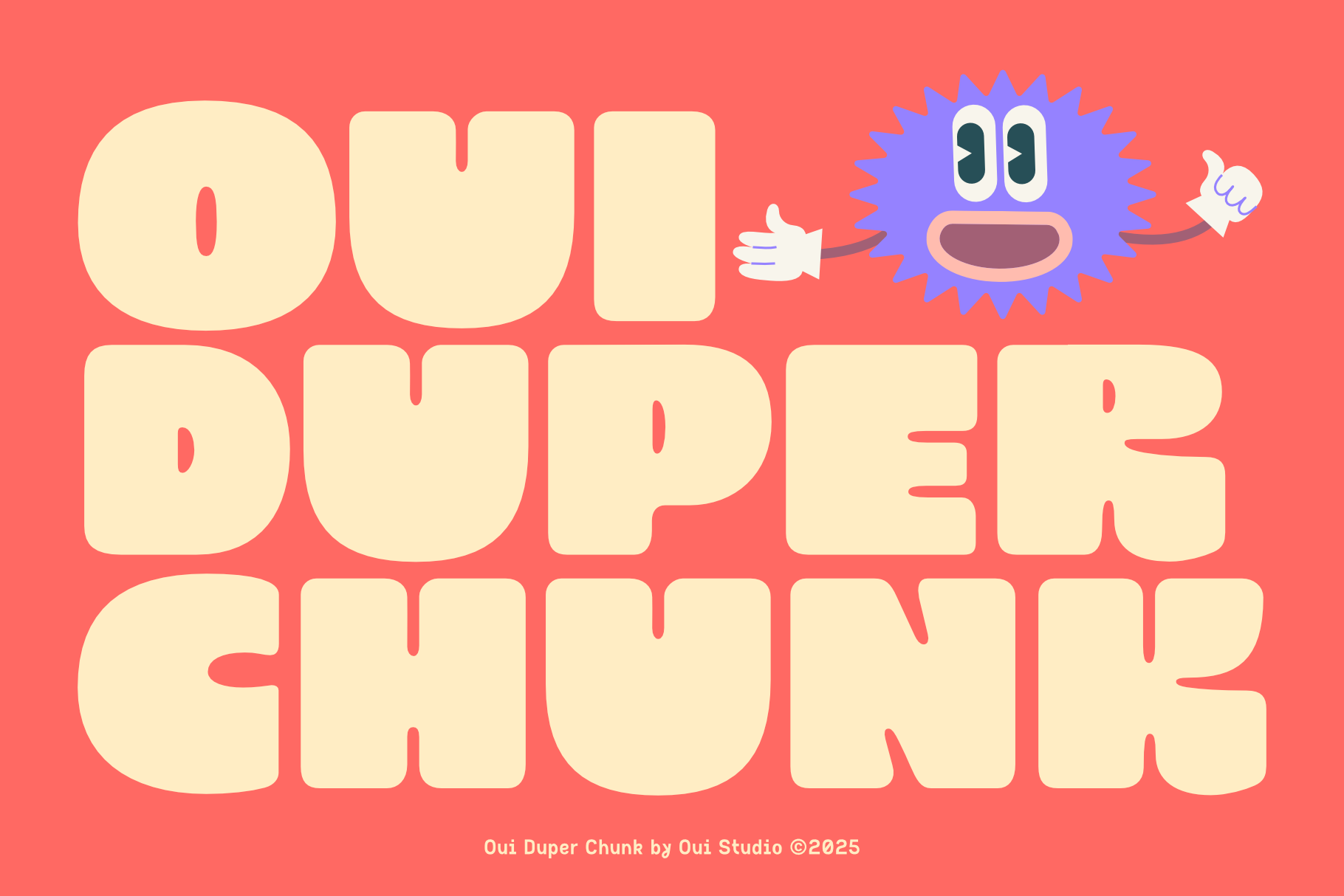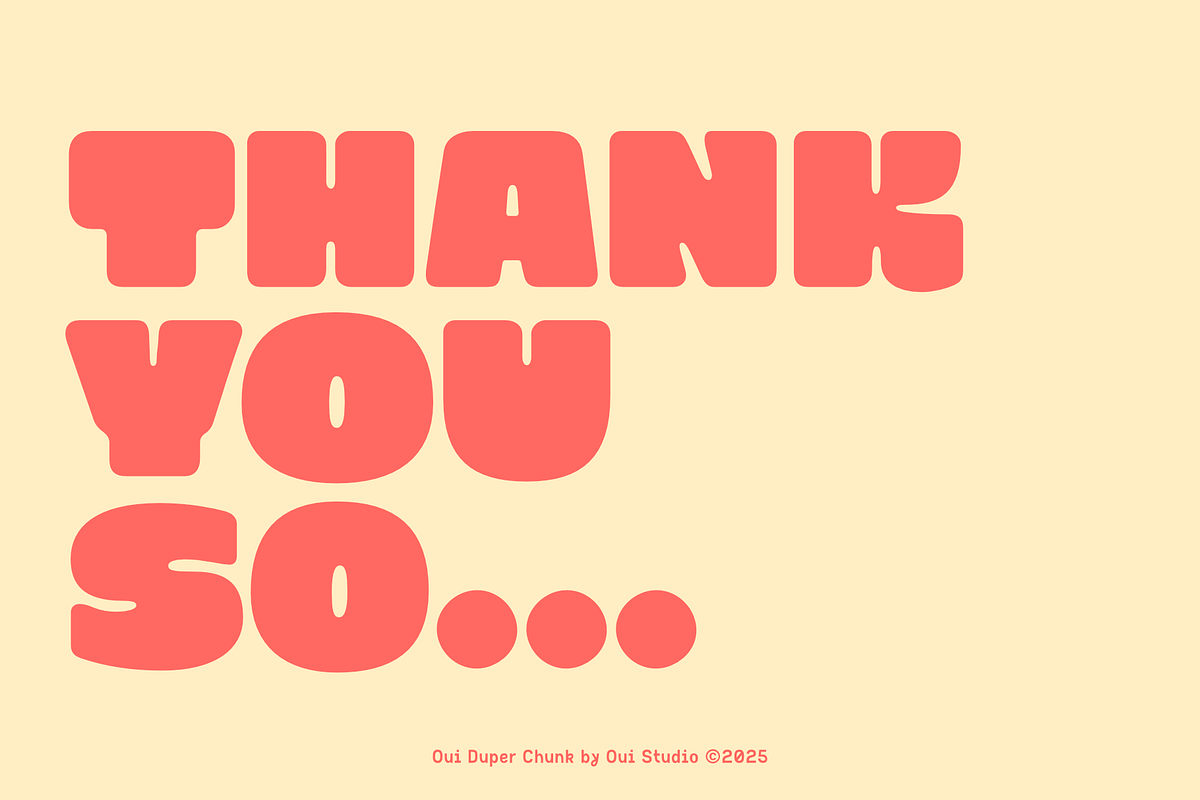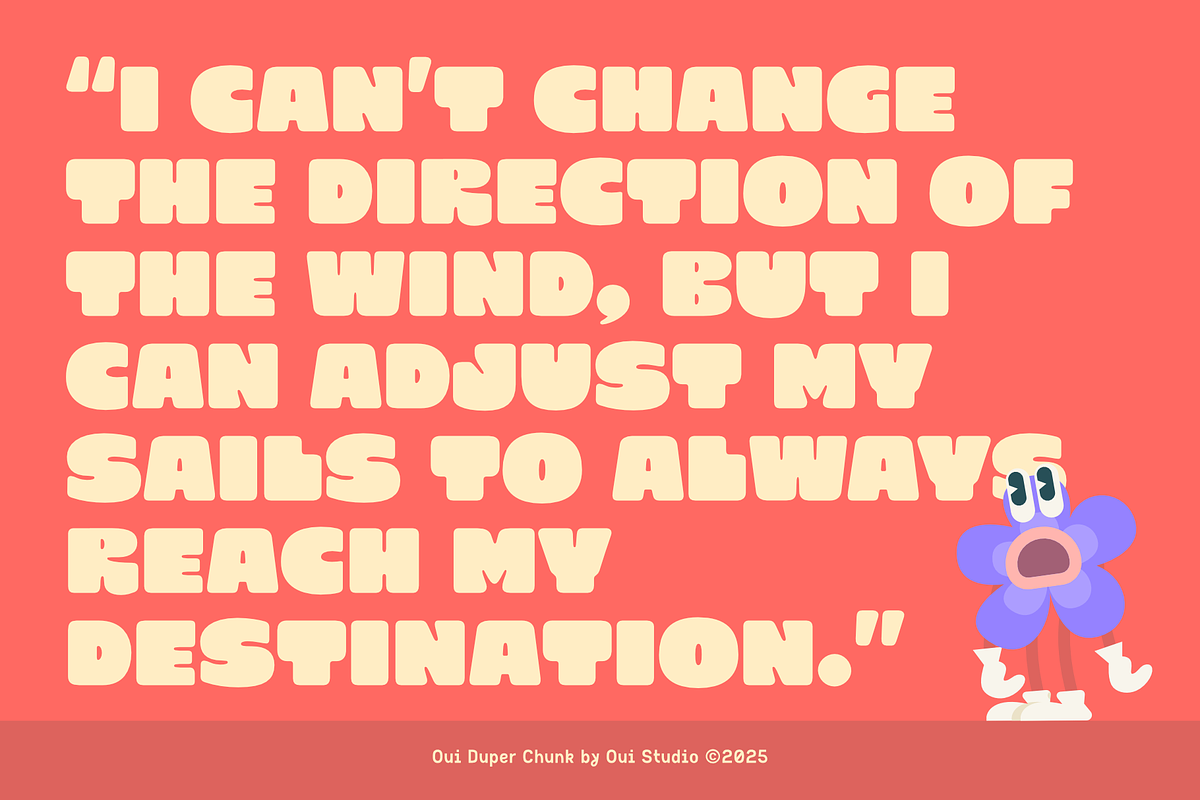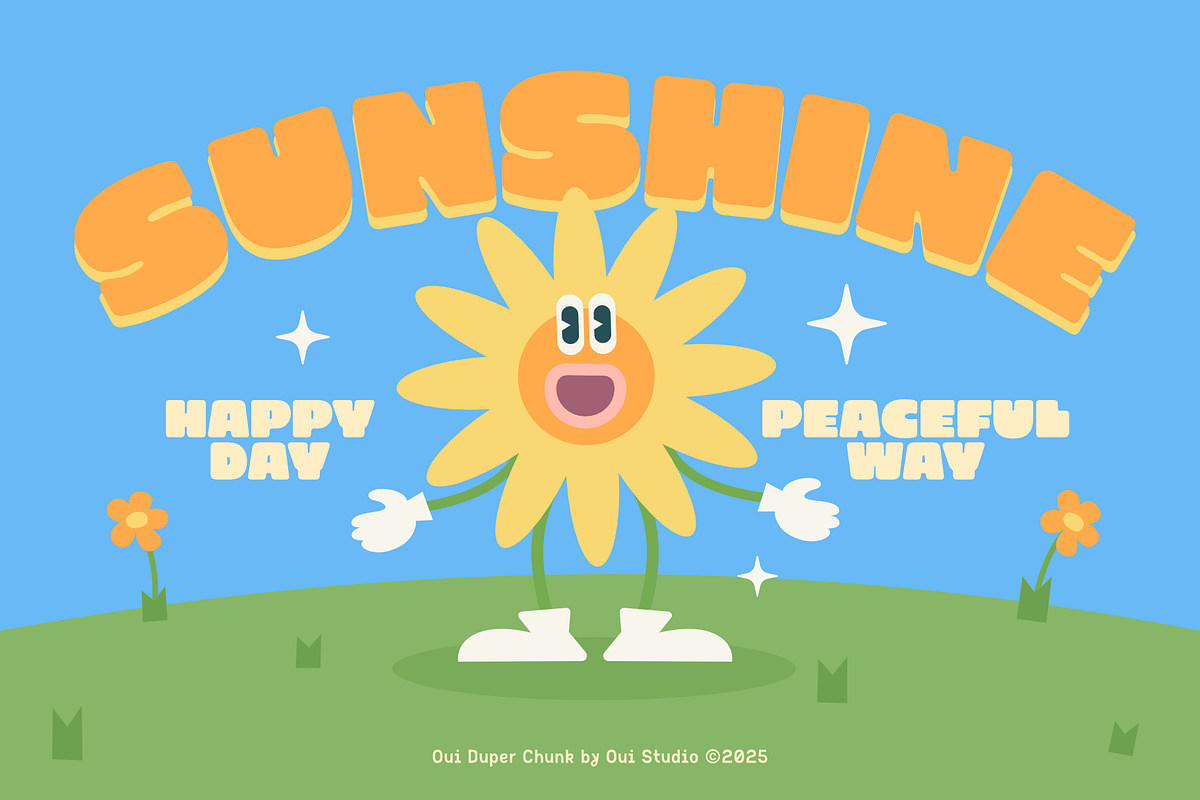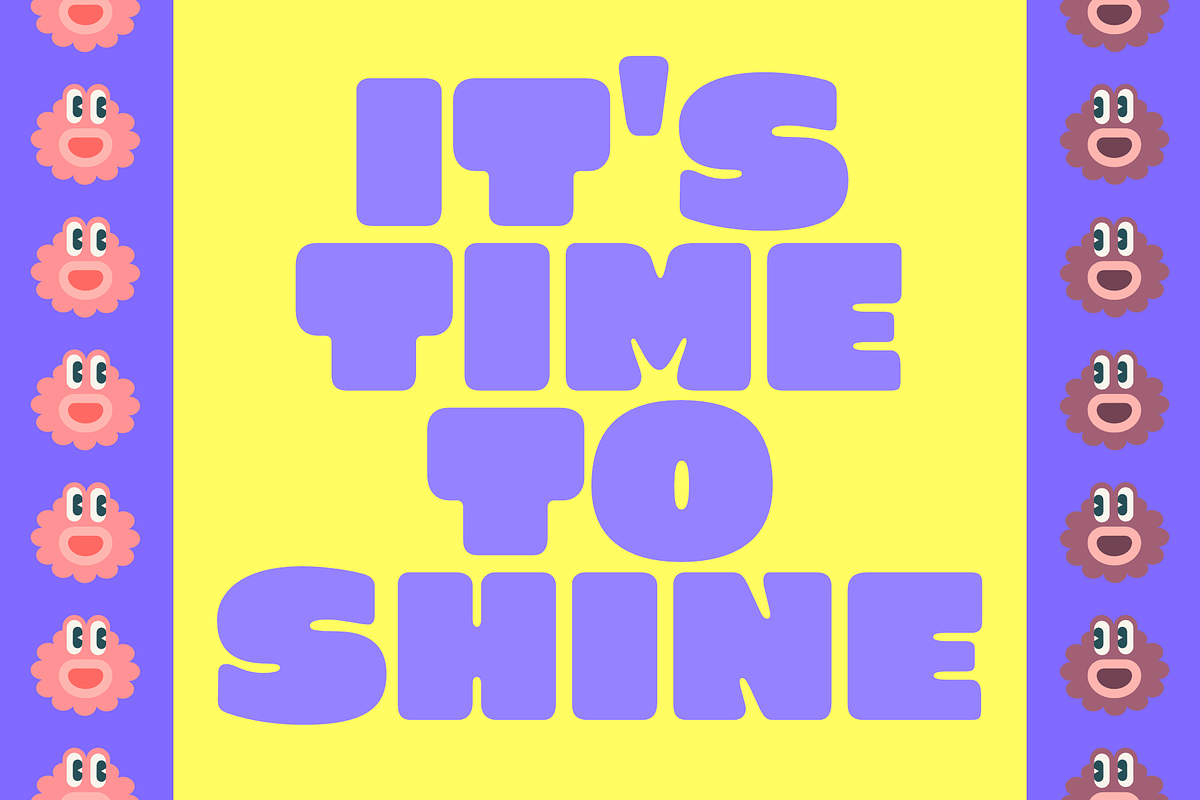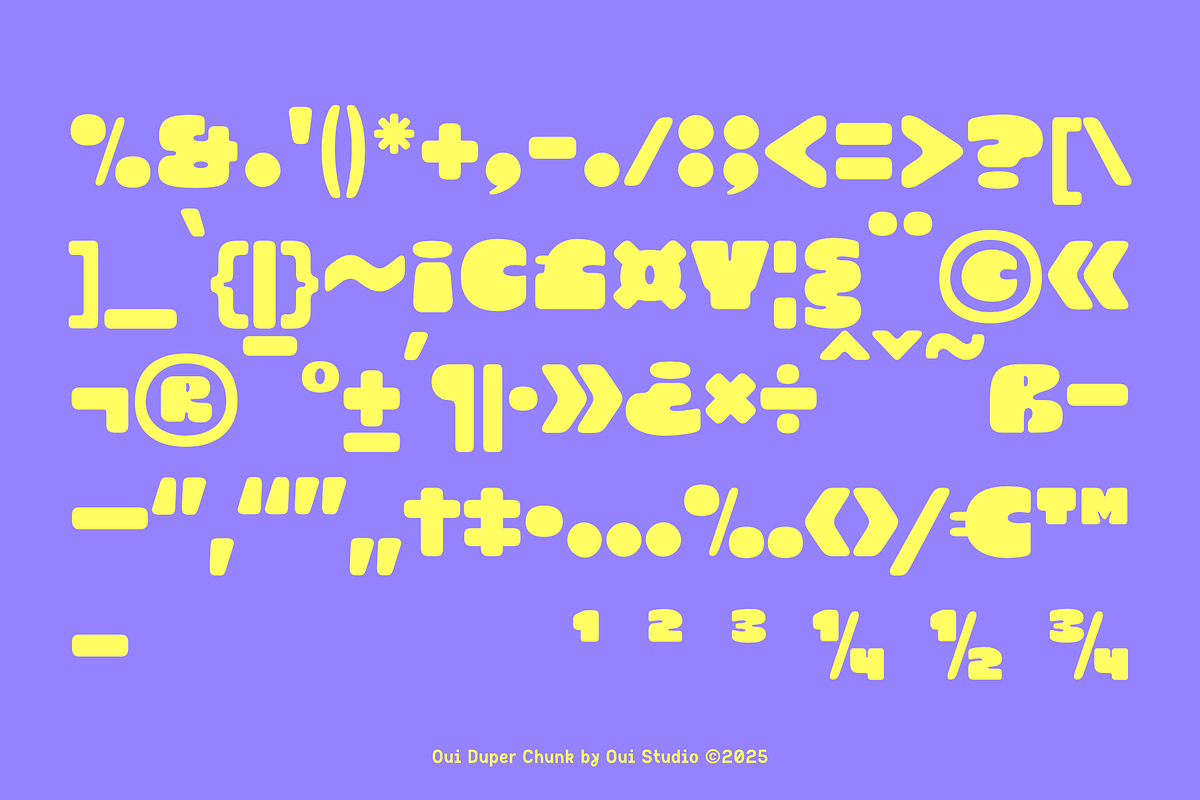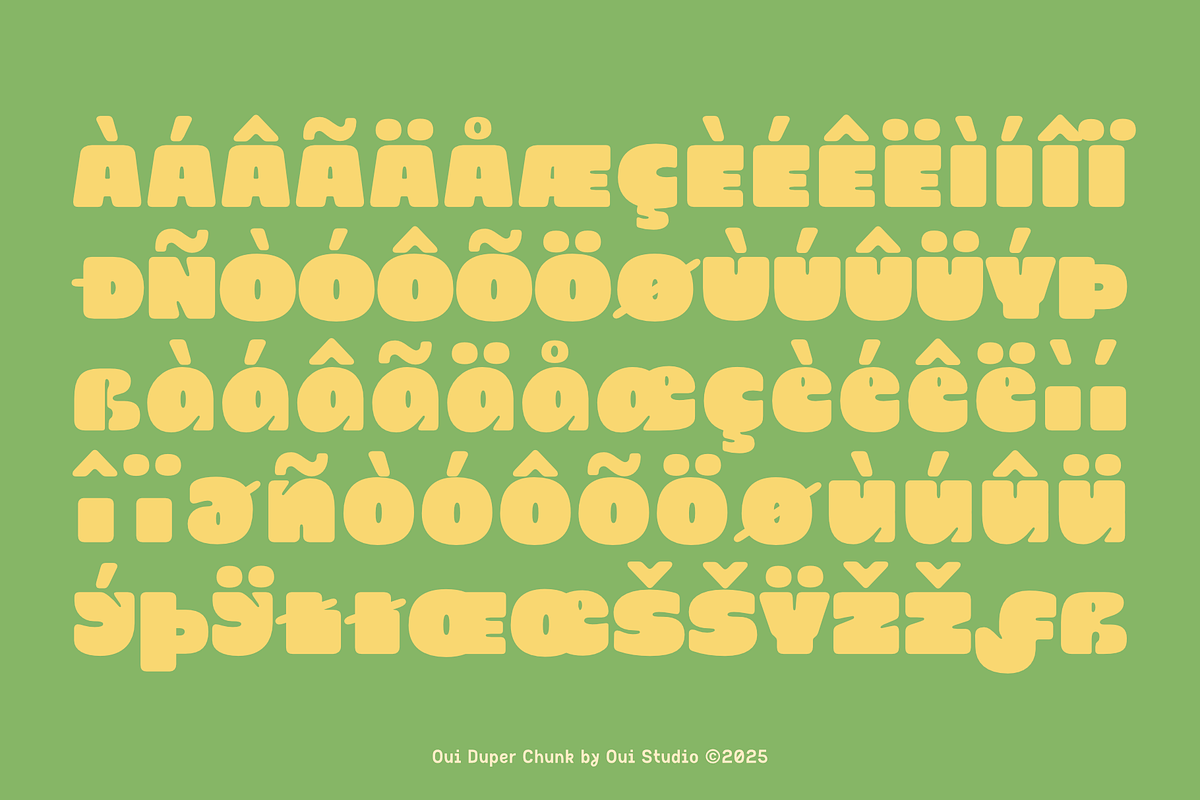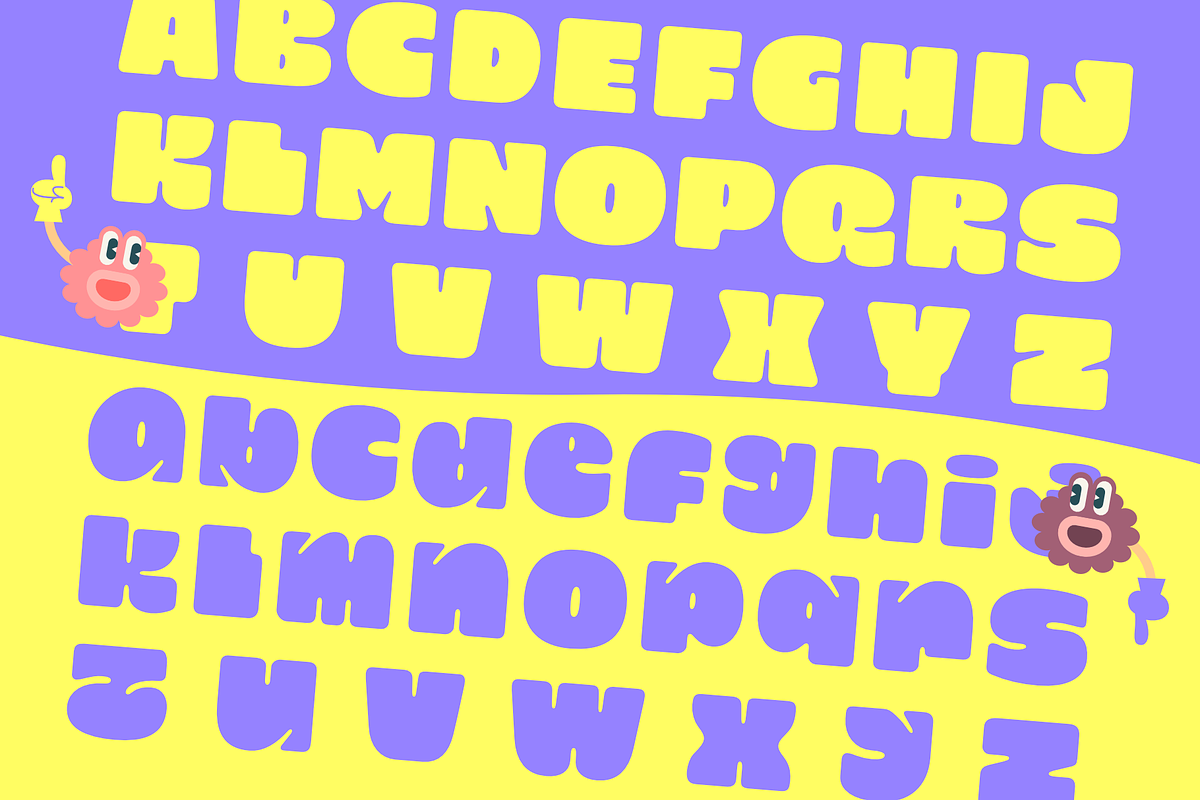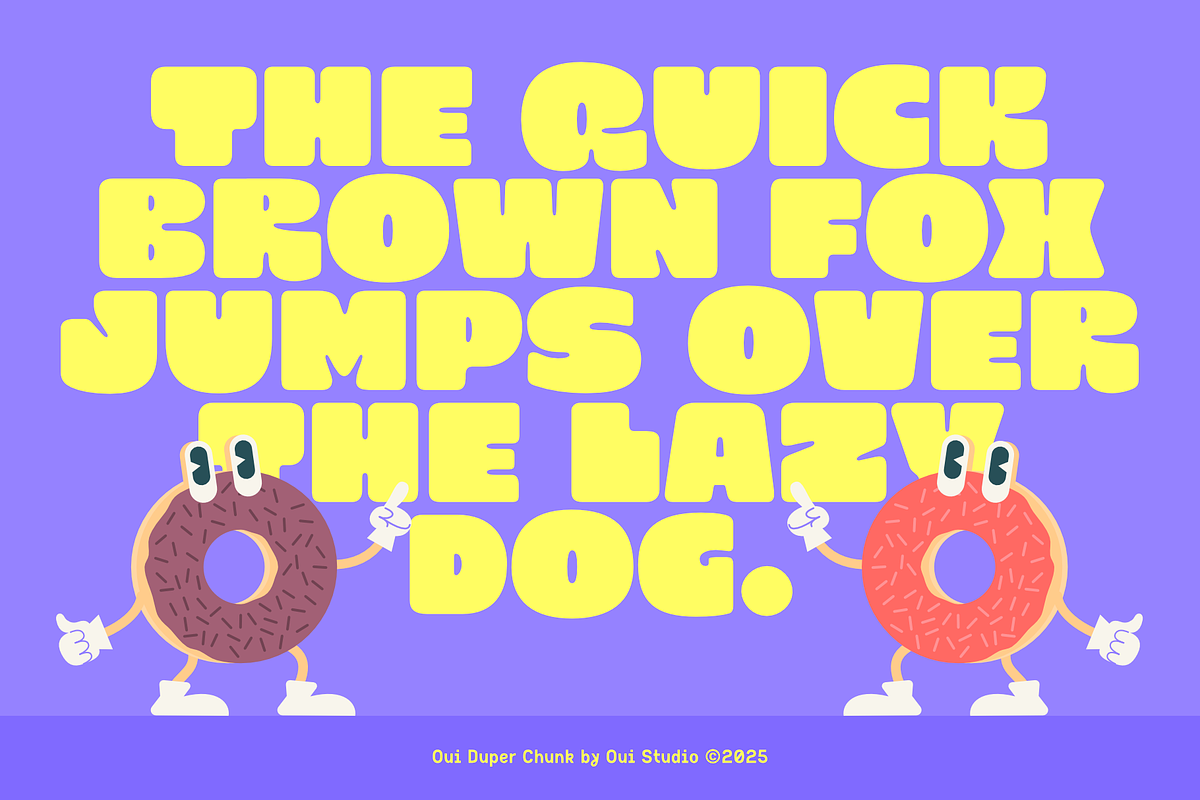
Duper Chunk Bold and Bubbly Font
Say hello to Oui Duper Chunk: a delightfully chunky, fun-loving display font that oozes personality! Designed by Oui Studio, this font brings boldness, joy, and a hint of retro nostalgia into every letterform. Perfect for designers, creatives, and brands that want to stand out with a playful punch.
Oui Duper Chunk is perfect for kids’ products & packaging, greeting cards & stationery, party invitations & event branding, food & beverage labels, social media posts & thumbnails, apparel design (especially tees and totes!), fun editorial headlines.
Oui Duper Chunk was created to bring smiles and standout visuals to your creative projects. Whether you’re designing for kids, crafting a logo, or making merch, this font adds instant charm and chunky fun to your work!